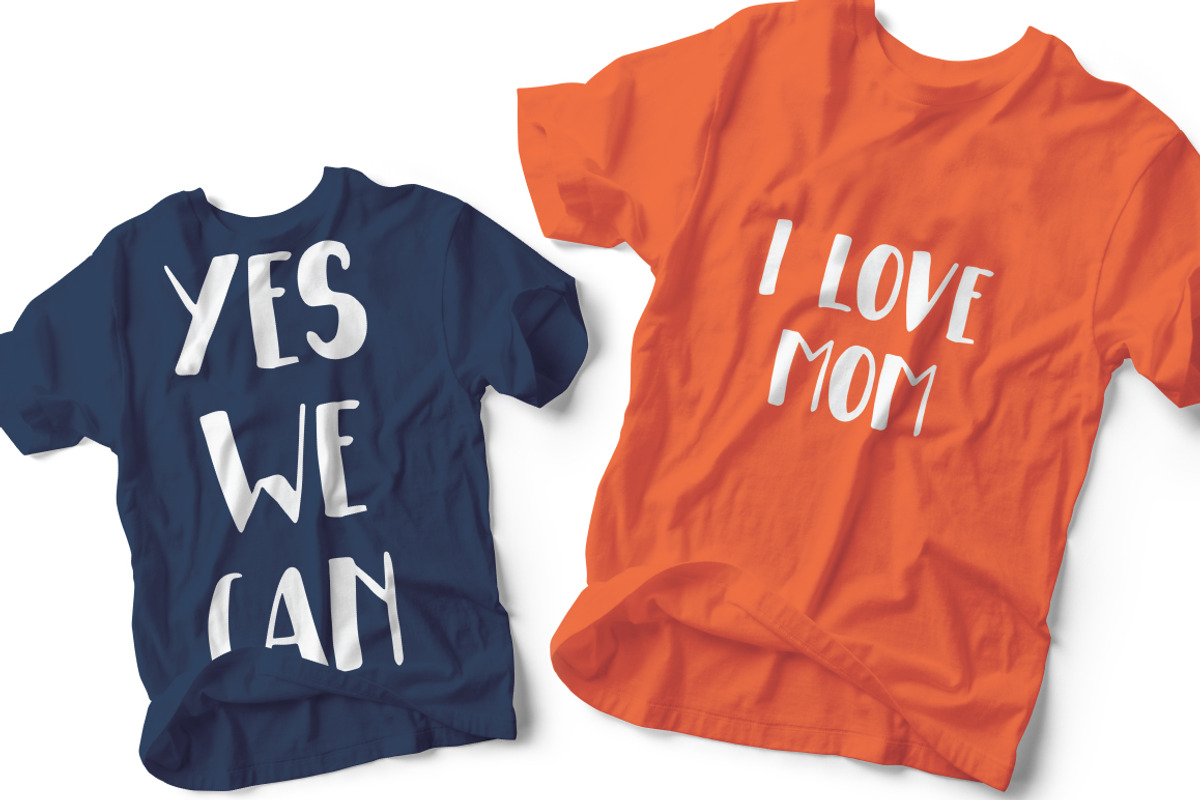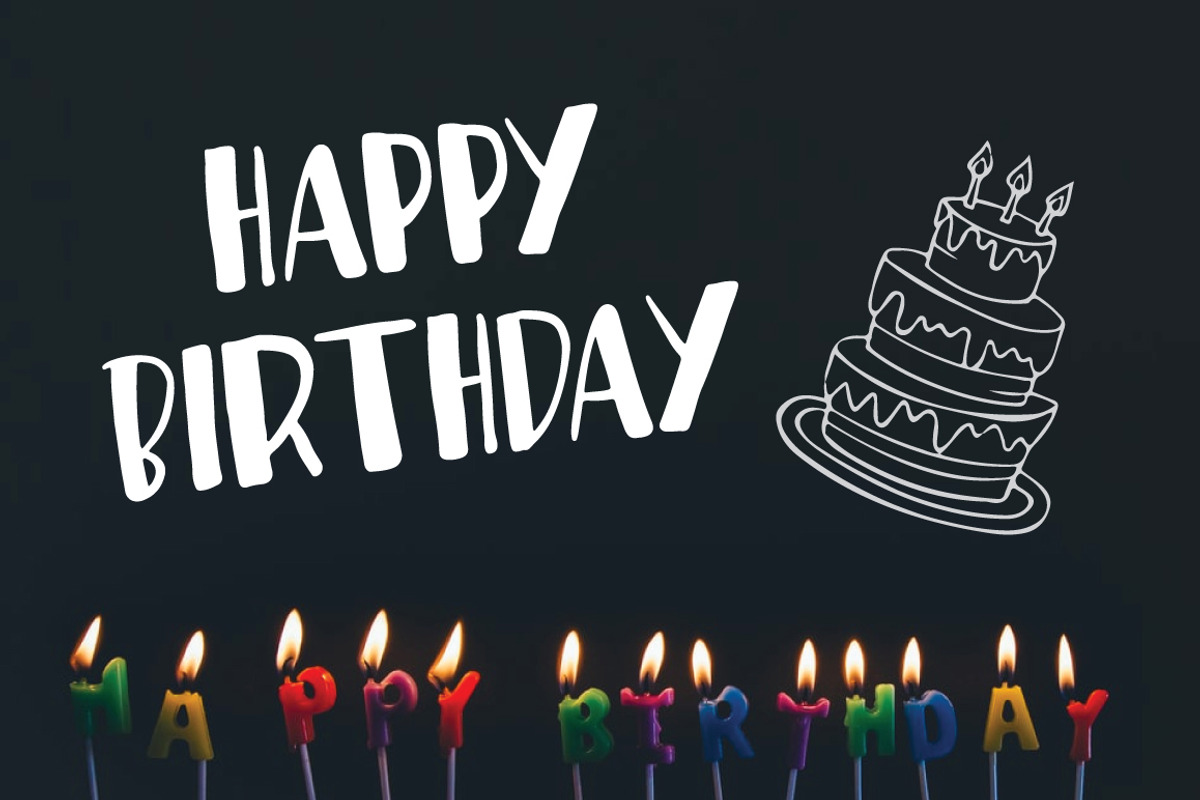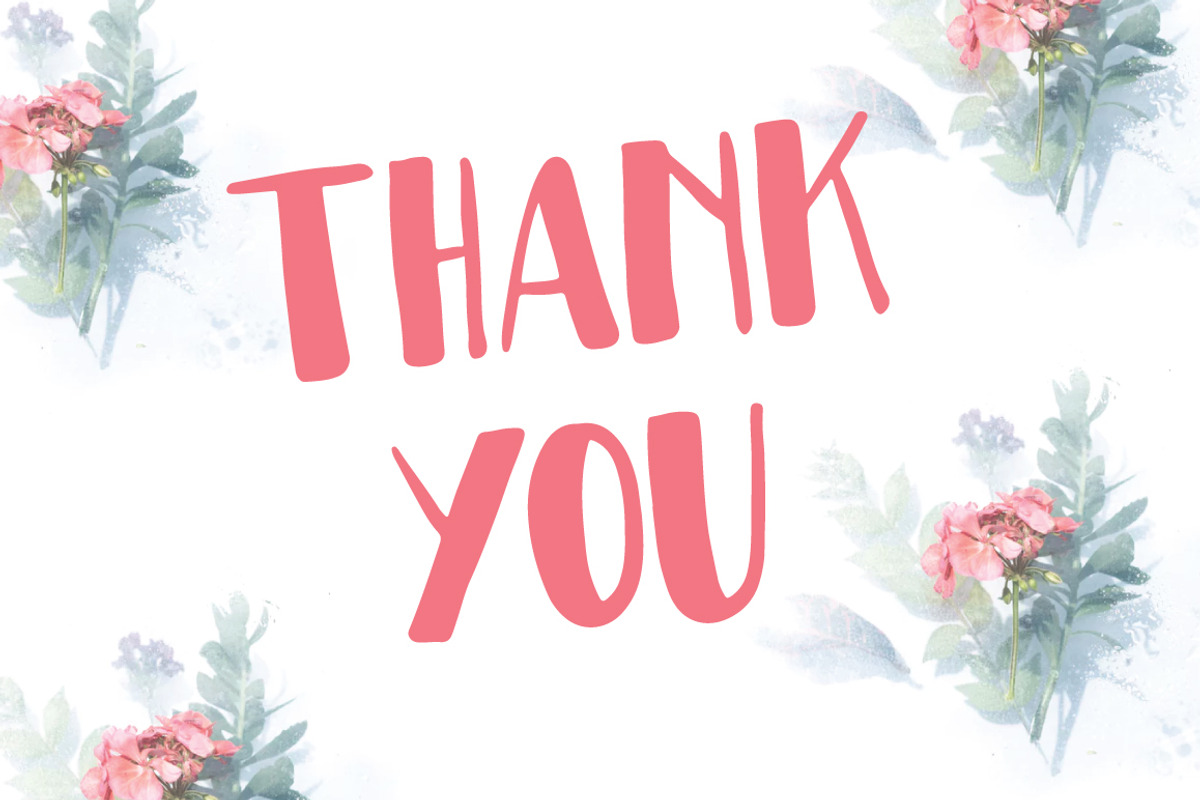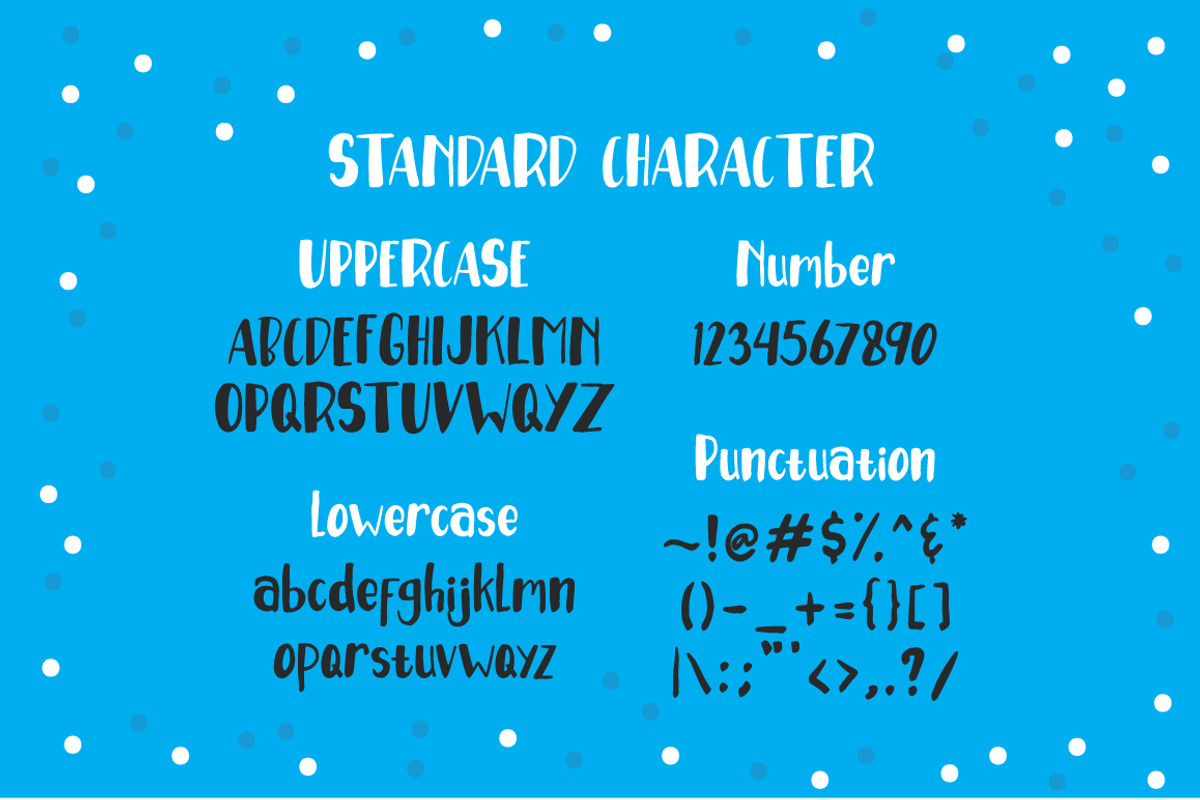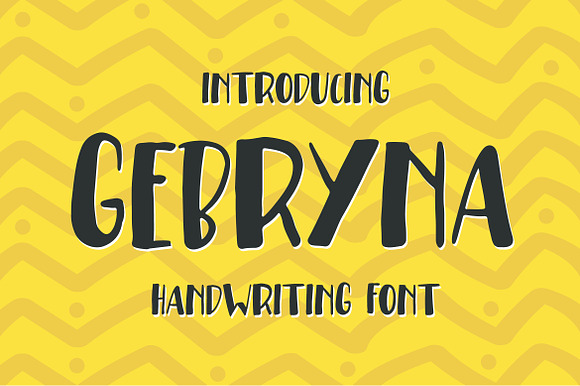
Gebryna Typeface - Handwriting Font
So beautiful on invitation like greeting cards, branding materials, business cards, quotes, posters, and more!
Gebryna Typeface - Handwriting Font by ianmikraz fits naturally into Branding, posters, packaging, typography.